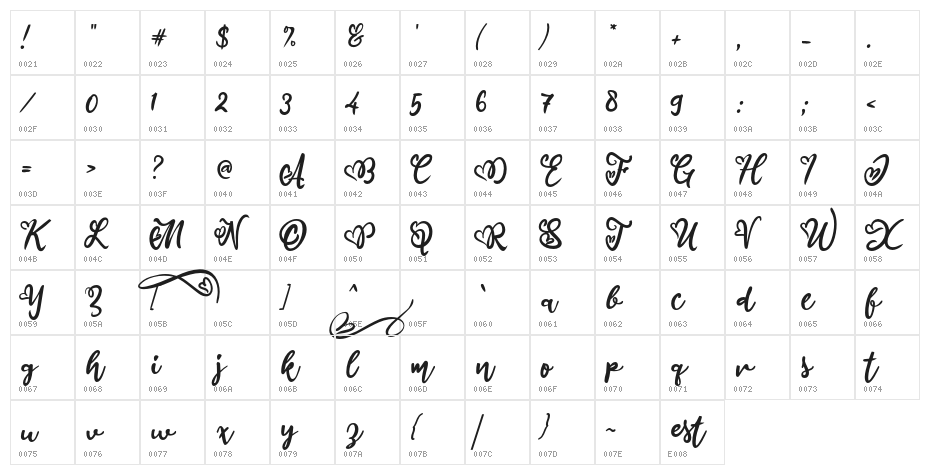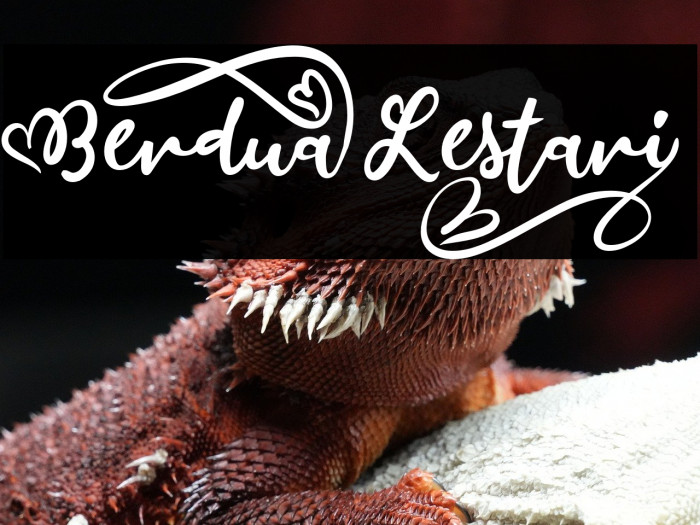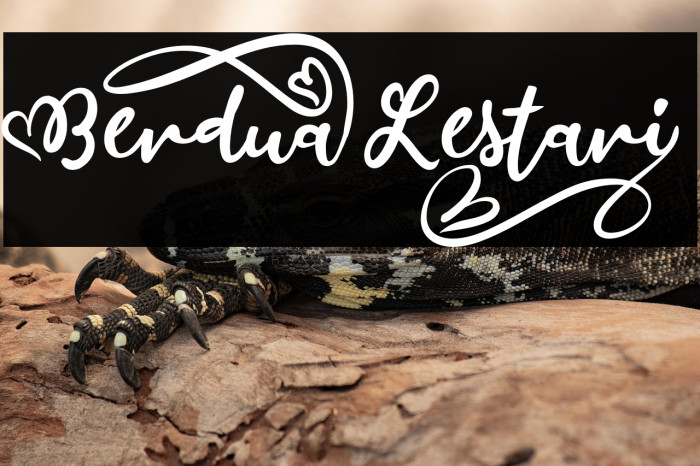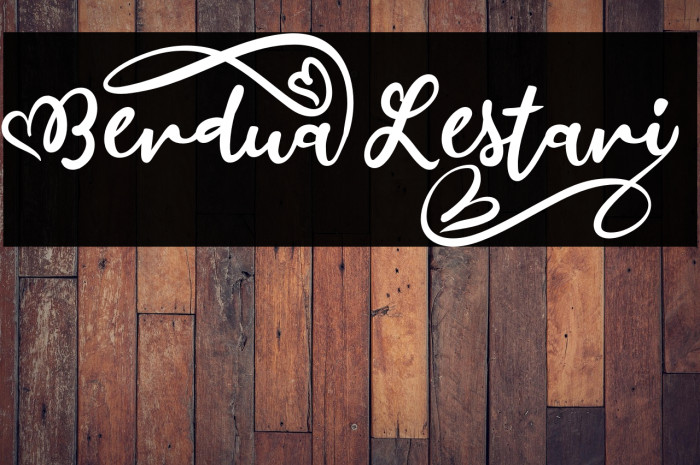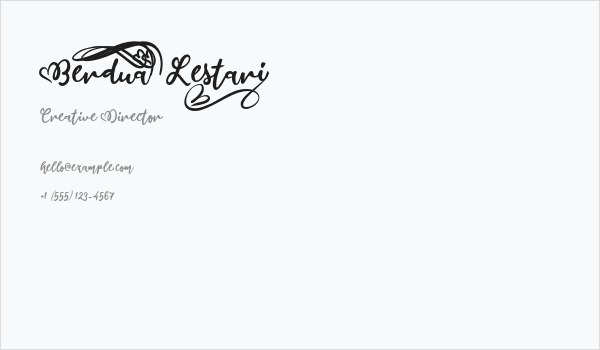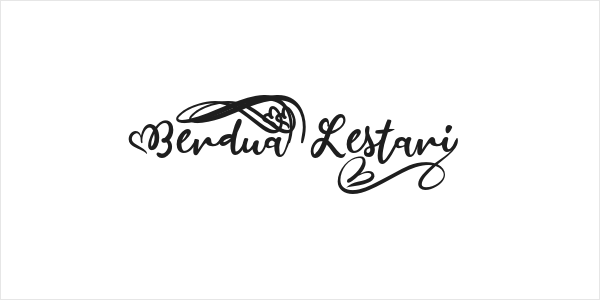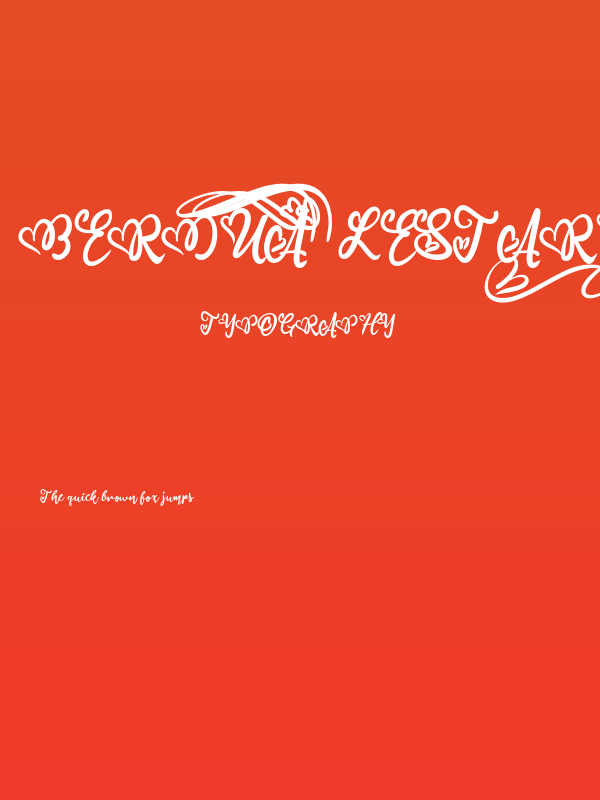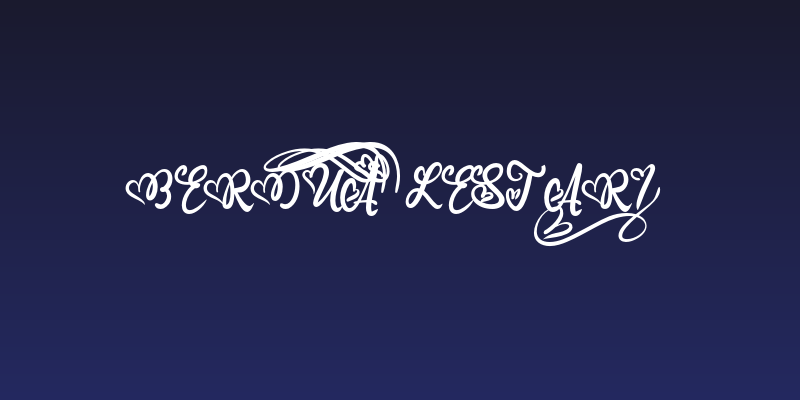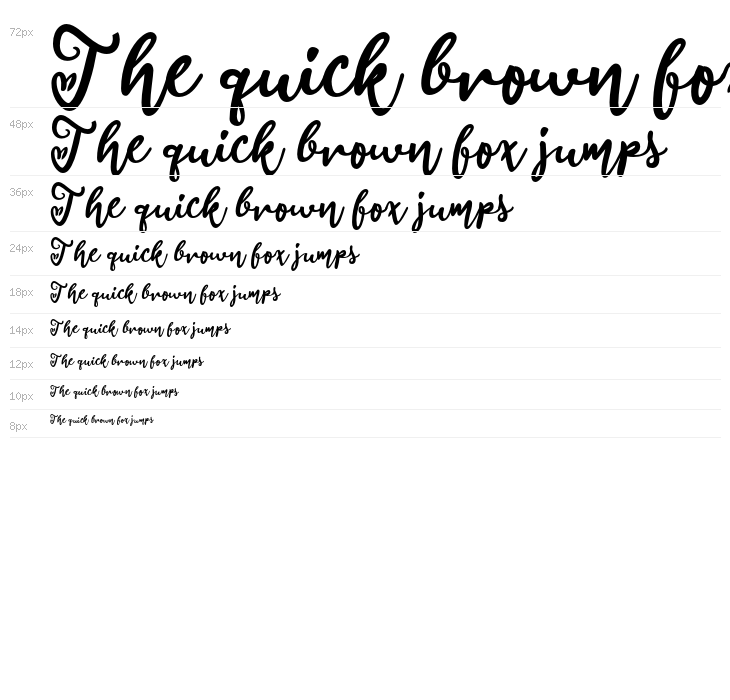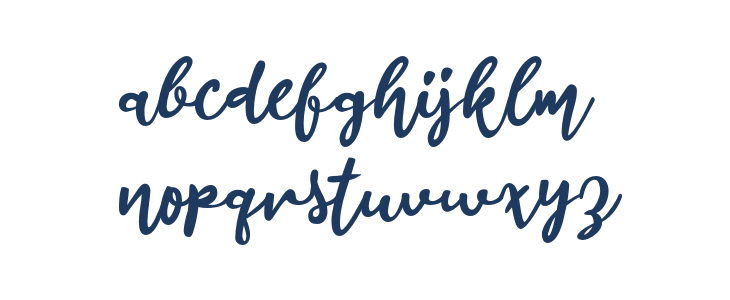
Berdua\Lestari_ Font
Berdua\Lestari_ Description
This font features a playful and romantic script style with heart-shaped embellishments integrated into the uppercase letters, adding a whimsical touch. The lowercase letters maintain a smooth, flowing cursive appearance, enhancing its elegant and artistic vibe. The numerals and special characters are consistent with the script style, offering a cohesive look throughout. The overall design is bold and expressive, making it suitable for creative and decorative applications.
| Proposed Projects | Ideal for wedding invitations, greeting cards, romantic branding, and decorative posters. |